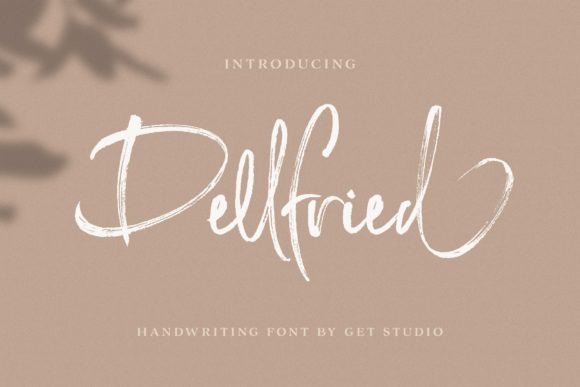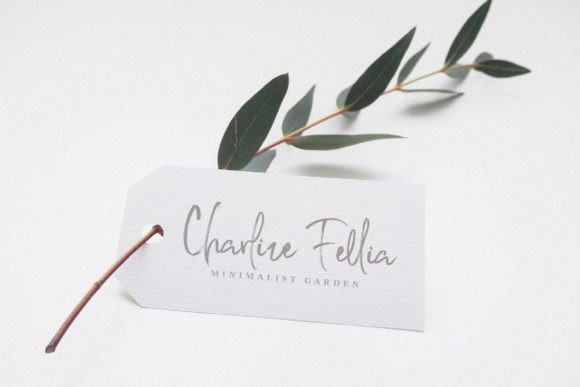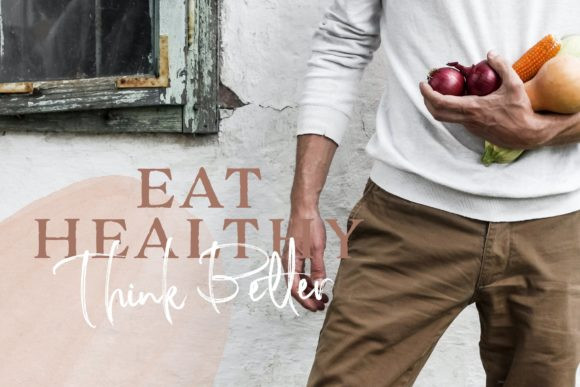
Dellfried Font
Dellfried is a romantic and sweet brushed calligraphy typeface with characters that dance along the baseline. It will add a luxury spark to any design project that you wish to create!